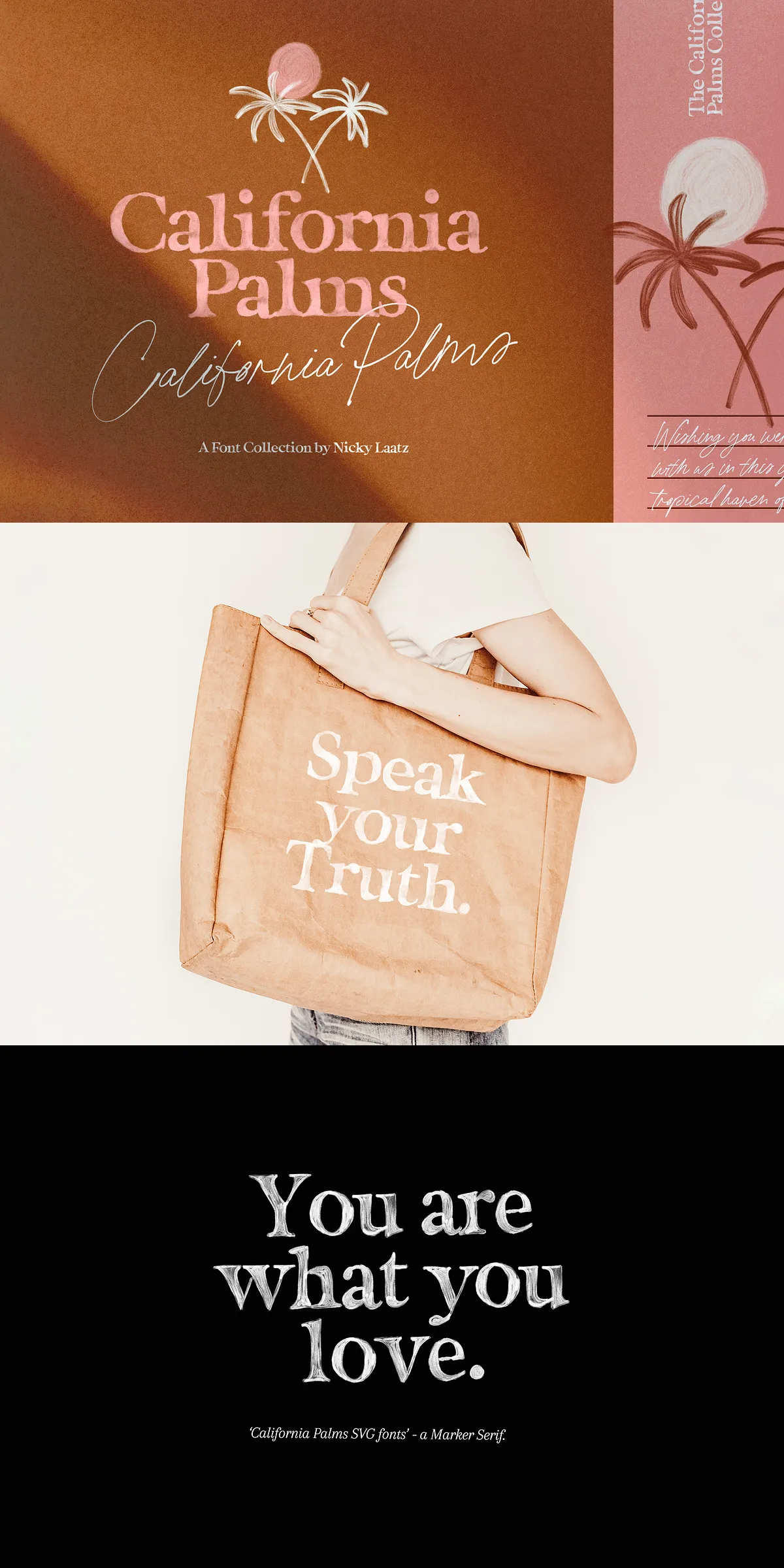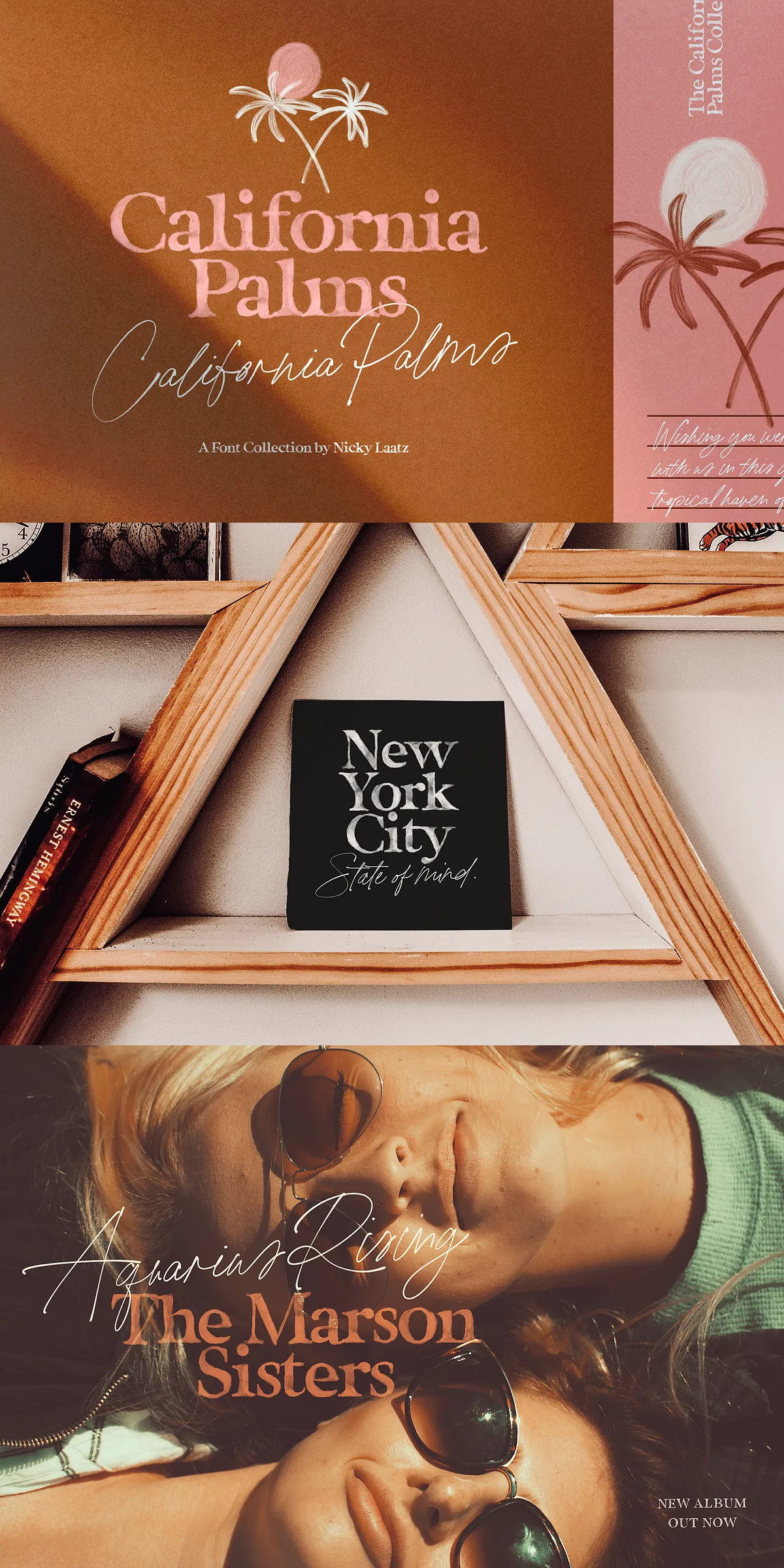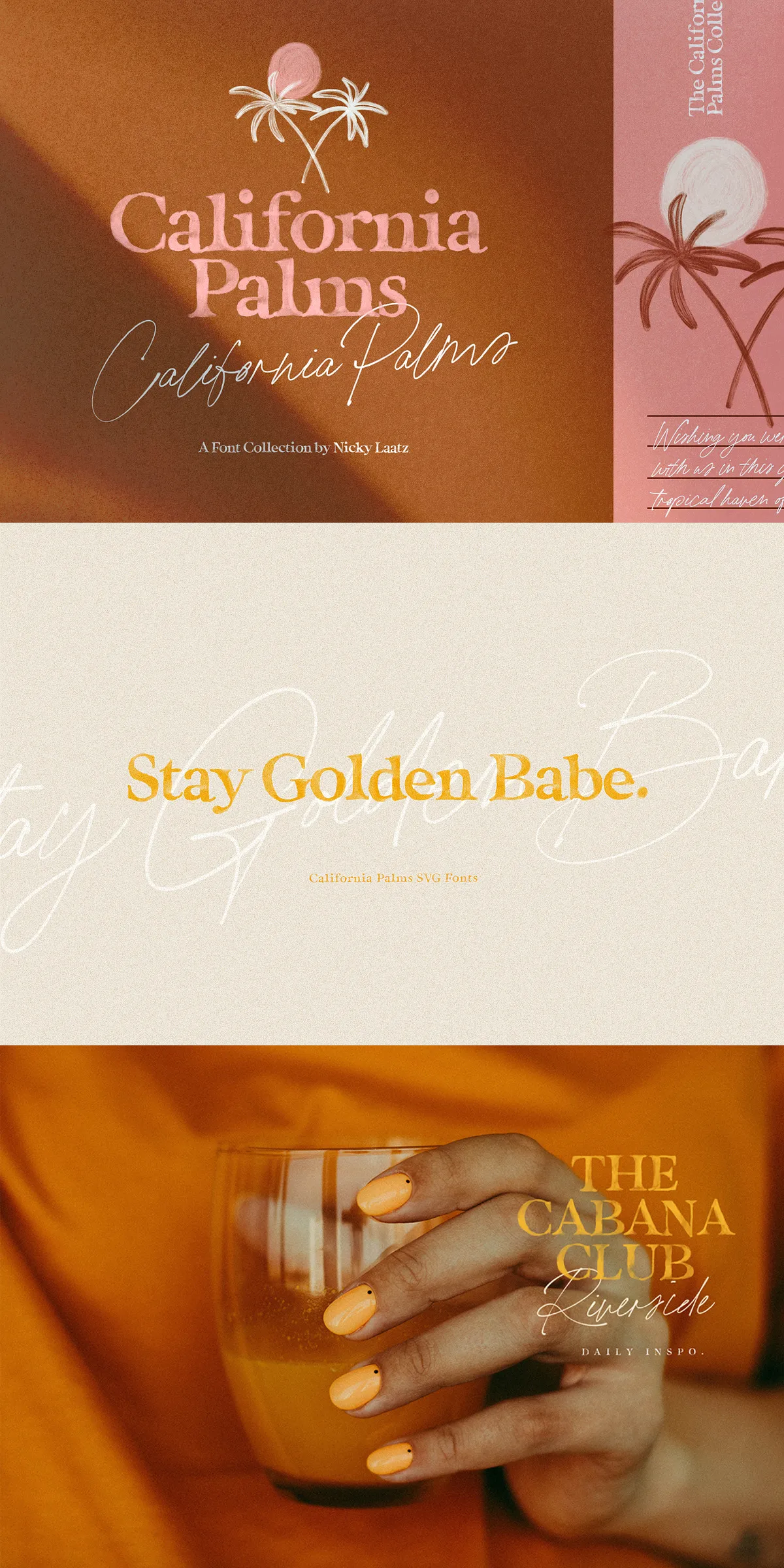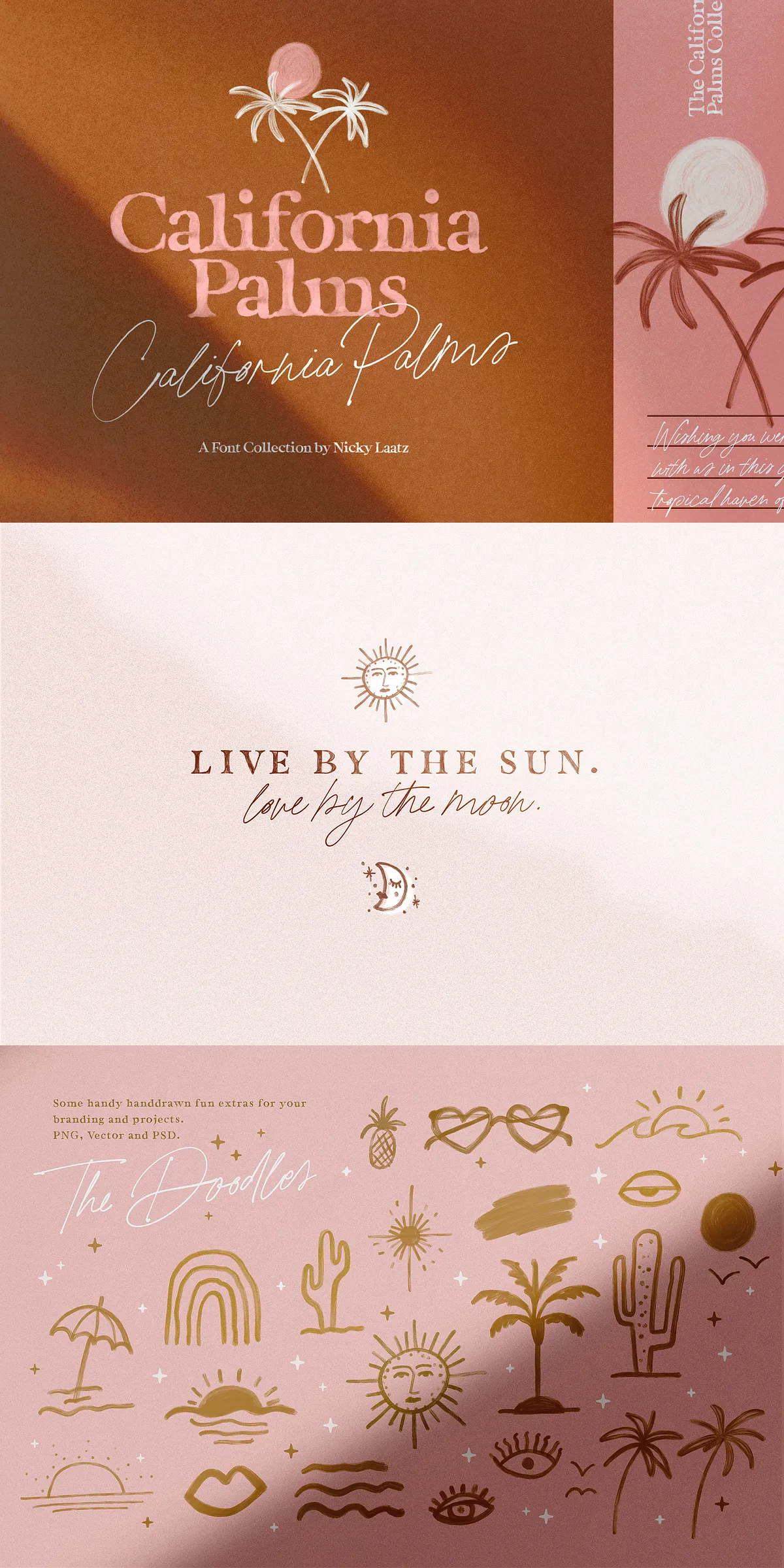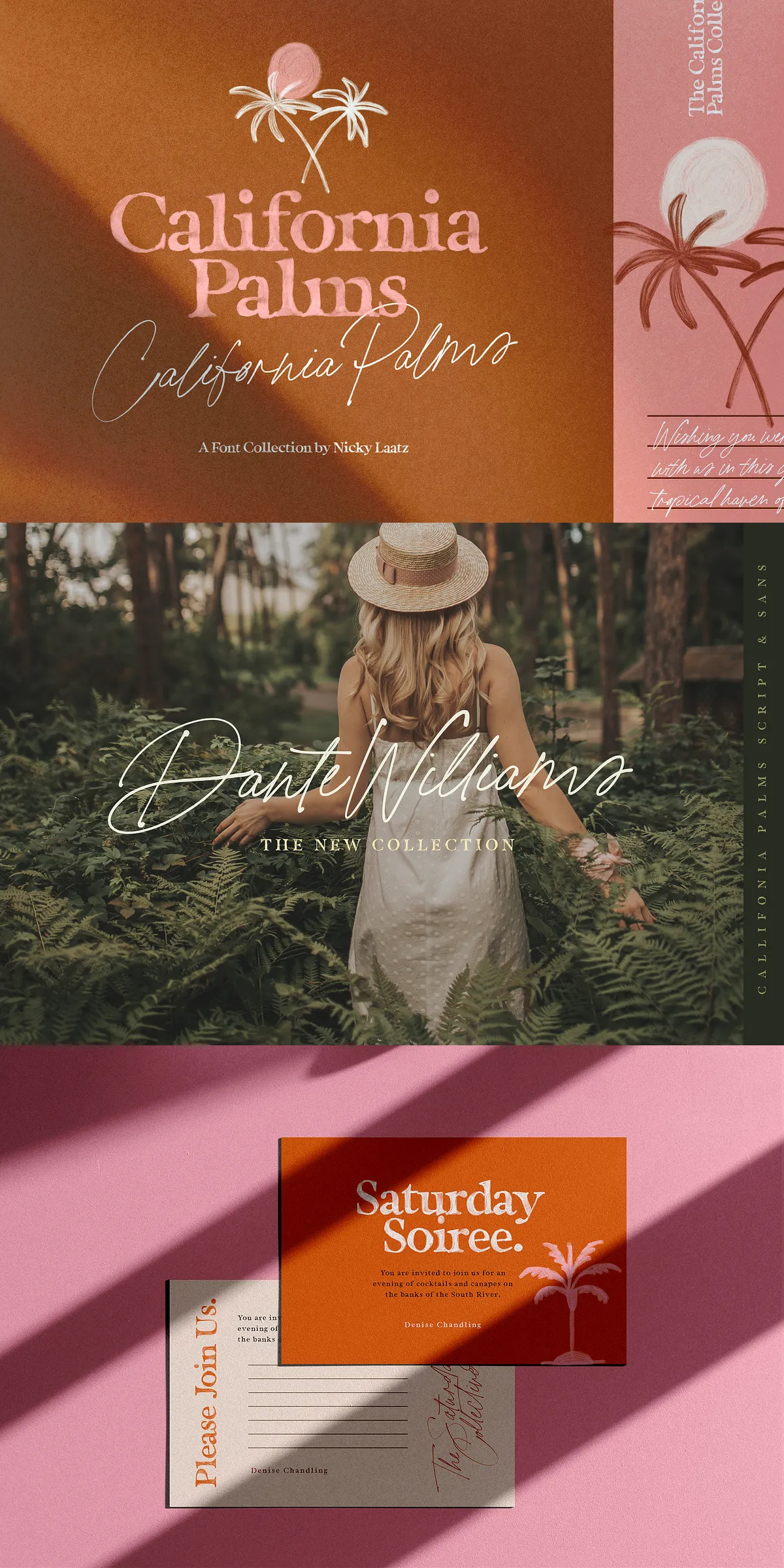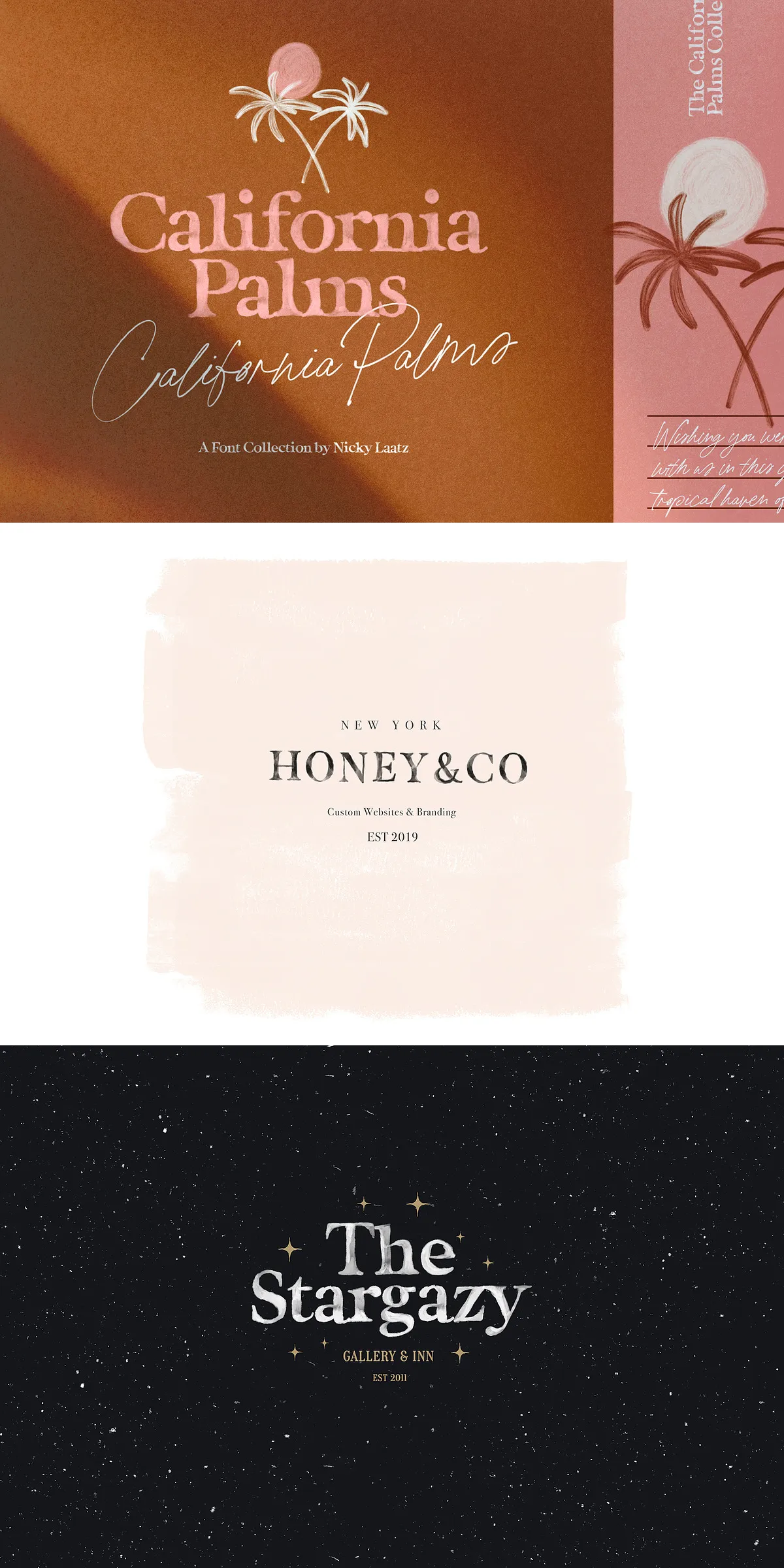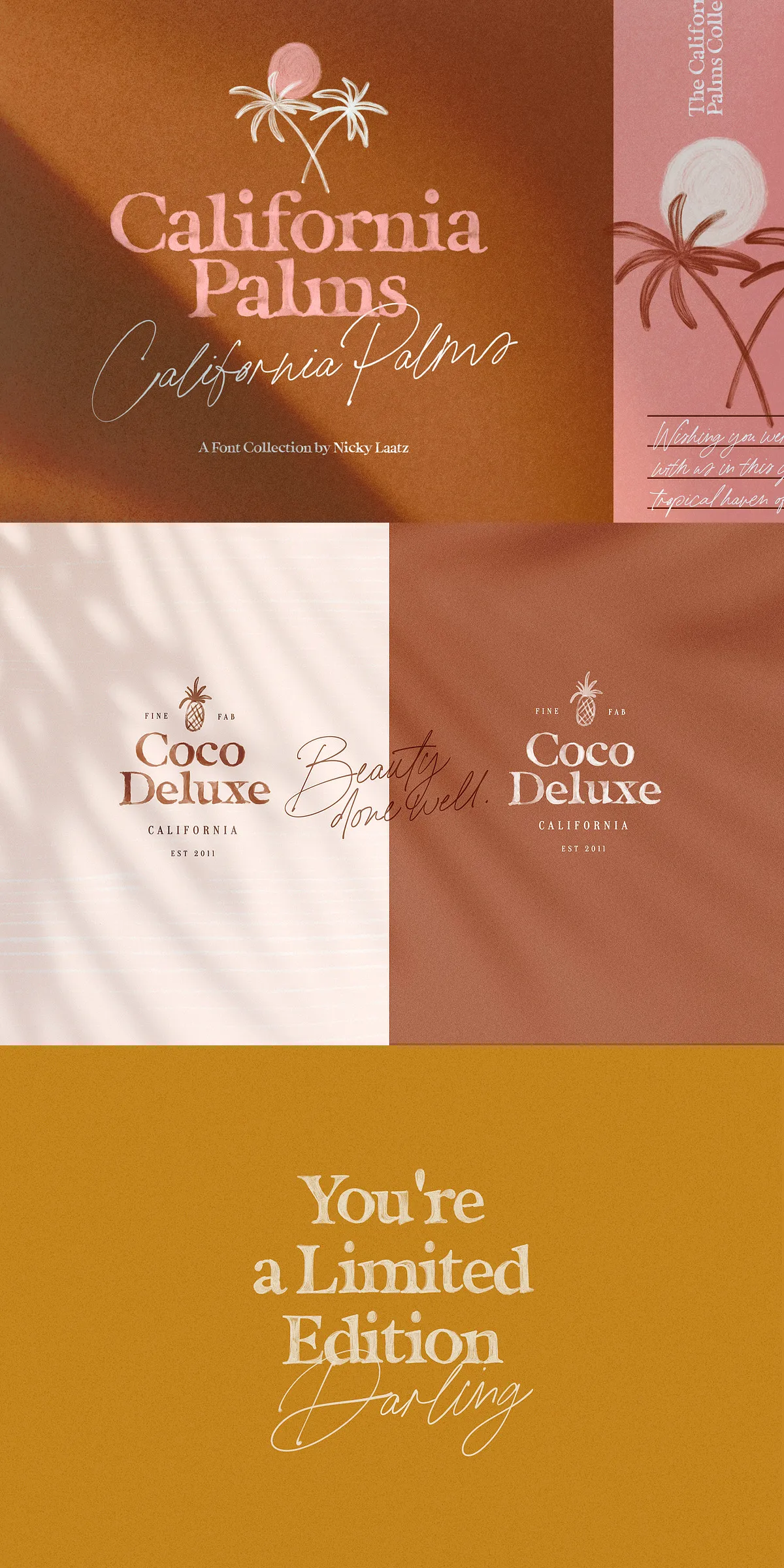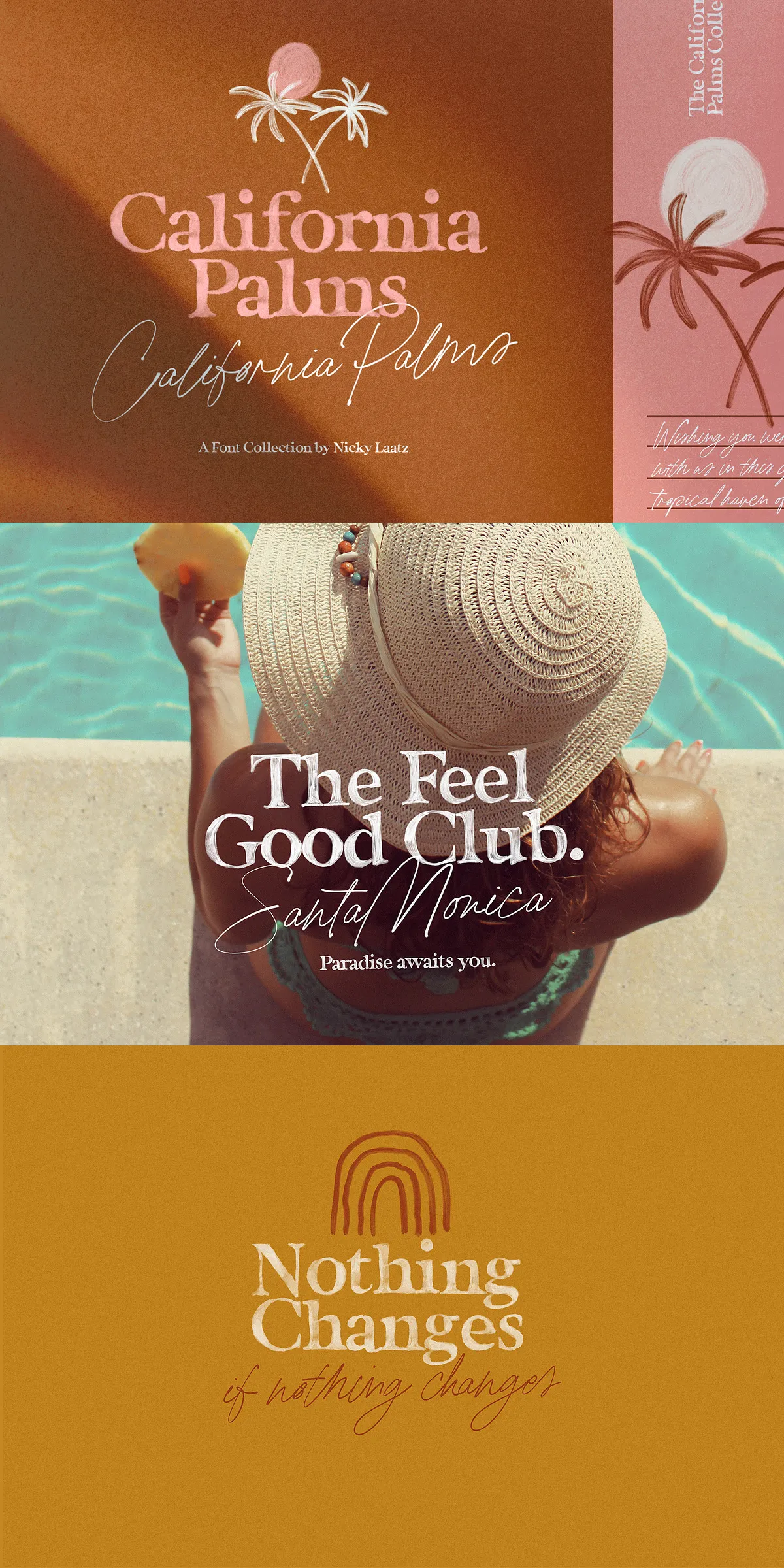
California Palms Fonts & Graphics
Flip on your sunnies, grab that tropical umbrella drink, and dive into the California Palms Font & Graphics Collection — a vibrant, sun-kissed explosion of creativity designed for summer-inspired projects. Whether you’re crafting beachy invitations, bold social media graphics, or tropical branding, this collection delivers authentic, high-energy design elements that stand out from the crowd. Every font and graphic is engineered for immediate impact, seamless integration, and maximum creative freedom.
Meet the Star Fonts: Watercolor, Marker, and Hand-Drawn Style
Brought to life with real texture and soul, the California Palms fonts go beyond digital precision — they feel handcrafted.
California Palms Script (SVG & Regular OpenType)
This flowing script is your go-to for natural, expressive typography. Available in both SVG and traditional OpenType formats, it combines elegance with versatility. The script boasts 74 automatic ligatures that simulate real handwriting — connecting letters dynamically to eliminate awkward gaps and create fluid, organic-looking text. It supports full uppercase and lowercase characters, punctuation, numerals, and a rich set of stylistic alternates. Use it on its own for standout headlines, or pair it with the serifs for a balanced, sophisticated layout.
California Palms Watercolour Serif (SVG Only)
Experience the authentic texture of handmade art with this SVG-only watercolor serif font. Each stroke mimics the soft bleed of actual watercolor paint, giving your text a tactile, artistic depth. Ideal for beach themes, vintage posters, and editorial covers, this font adds a layer of authenticity that flat digital fonts simply can’t achieve. Note: due to its raster-based SVG format, it’s optimized for use at medium to large sizes — ideal for headlines, banners, and social media content.
California Palms Marker Serif (SVG & Regular OpenType)
Bringing a bold, marker-drawn edge to your designs, this font blends crisp lines with a slightly rough, urban feel. Whether used in full color or black & white, it delivers high contrast and personality. With the same 74 ligatures as the script, it ensures consistency in flow and rhythm across your typography. Great for logos, album covers, and playful branding that demands attitude.
Why Designers Love the California Palms Collection
• Texture & Authenticity: Real watercolor and marker effects bring emotion and depth to digital work.
Transform Your Next Project — Summer Has Never Looked This Good